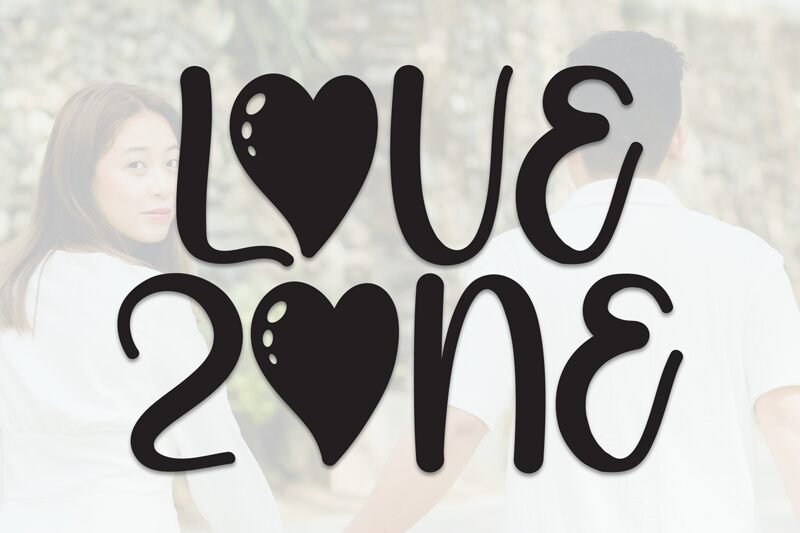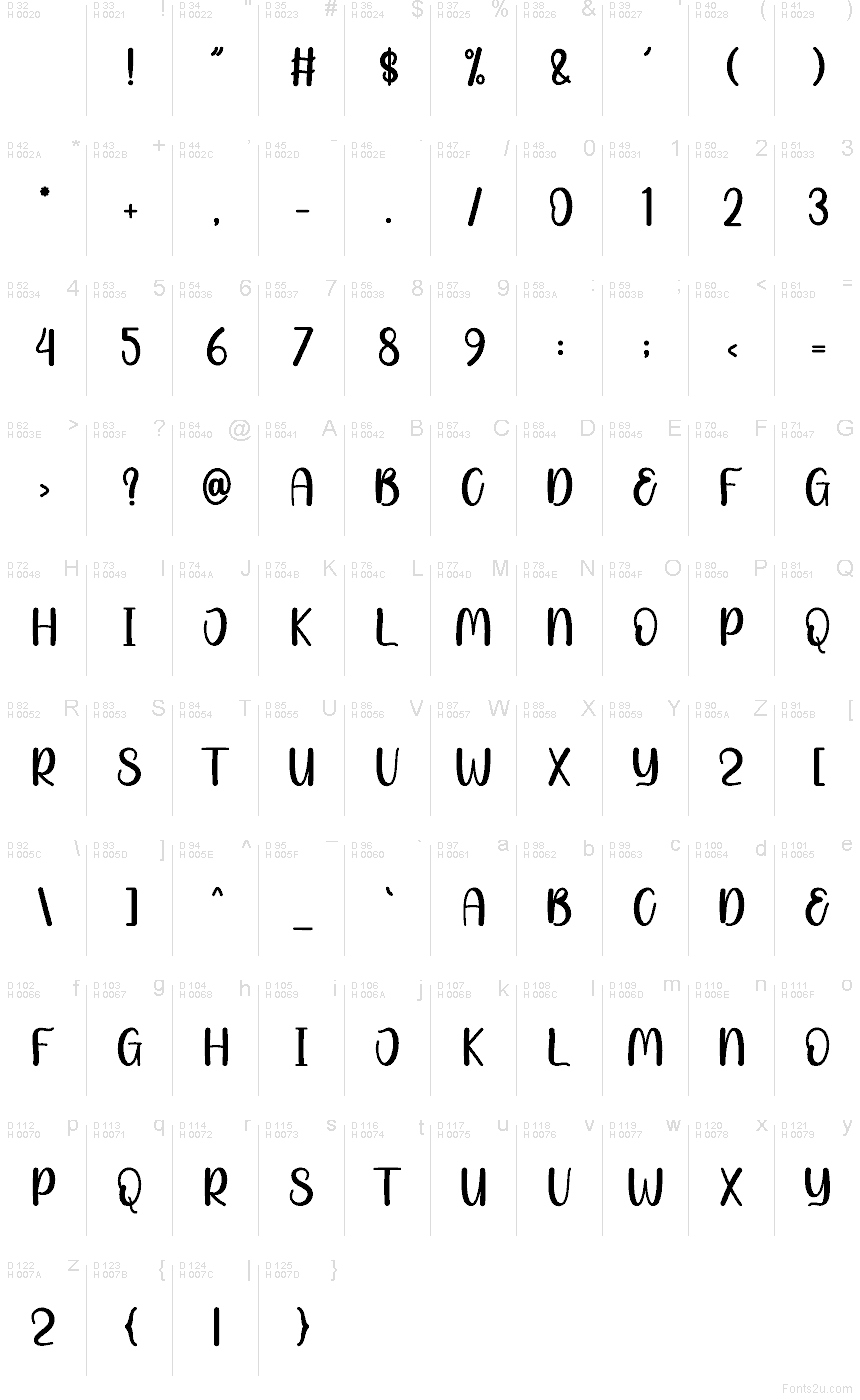
Love Zone
Love Zone font by Andi Moz is a free valentine script typeface with a loose, hand-painted rhythm that feels warm and genuinely personal. The tall, narrow letters sway gently, with inky, slightly rough edges that look like they were brushed onto textured paper. Rounded curves keep the mood soft and affectionate rather than overly formal, so your message feels like a note passed between lovers, not a stiff greeting card.
Using Love Zone, this free font shines on Valentine cards, wedding stationery, anniversary prints, romantic social posts, product packaging for sweets or florals, and love-themed logos. The generous curves make it especially strong at larger sizes where the brush texture can really show. For a polished look, pair Love Zone with a clean sans serif for body text so the script can handle the emotion while the details stay easy to read.